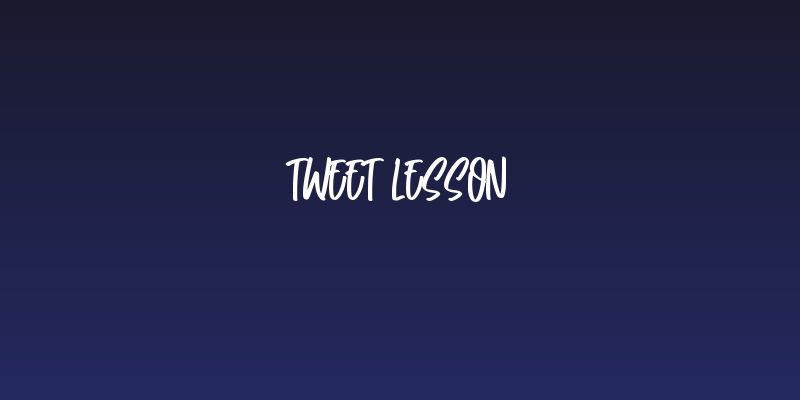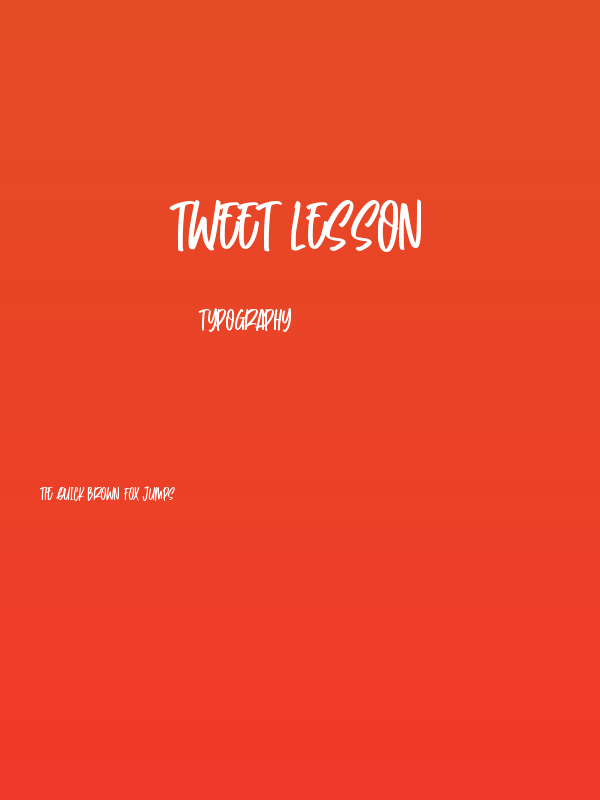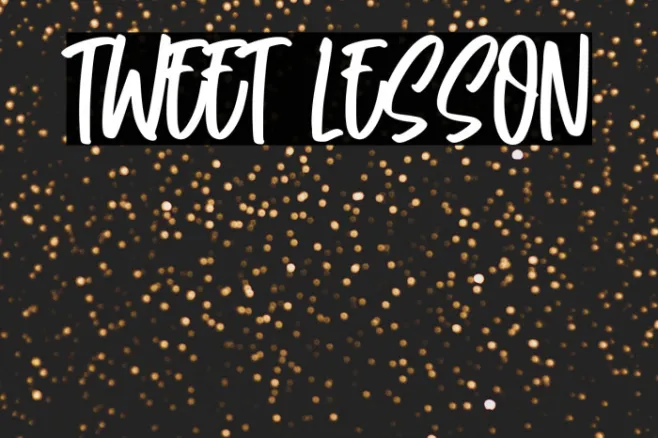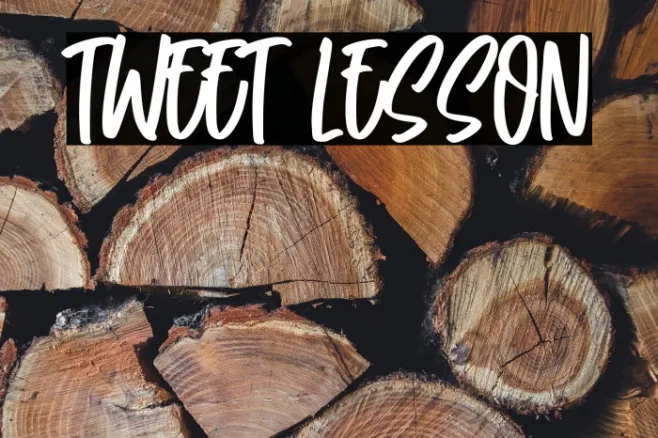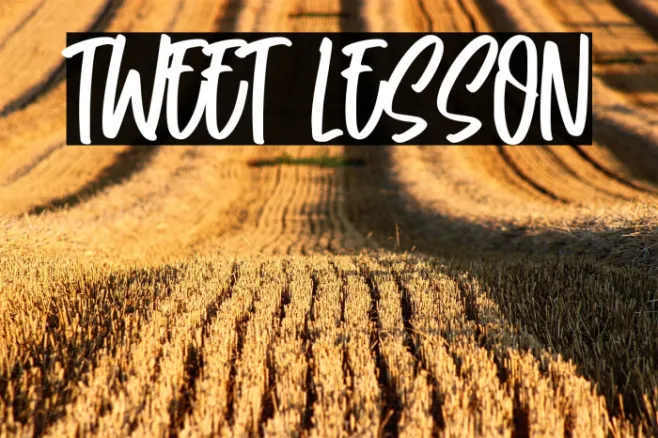
Tweet Lesson Font
This font exudes a lively and energetic handwritten style, characterized by its bold and expressive strokes. The letters are slightly slanted, giving a dynamic and informal appearance. The uppercase and lowercase letters maintain a consistent flow, with rounded edges and a playful touch. The numbers and special characters complement the alphabet with the same spirited style, making the font versatile for various creative applications. Its informal and friendly vibe makes it suitable for projects that aim to convey a personal and approachable message.
| Proposed Projects | Ideal for greeting cards, social media graphics, personal branding, and creative posters. |